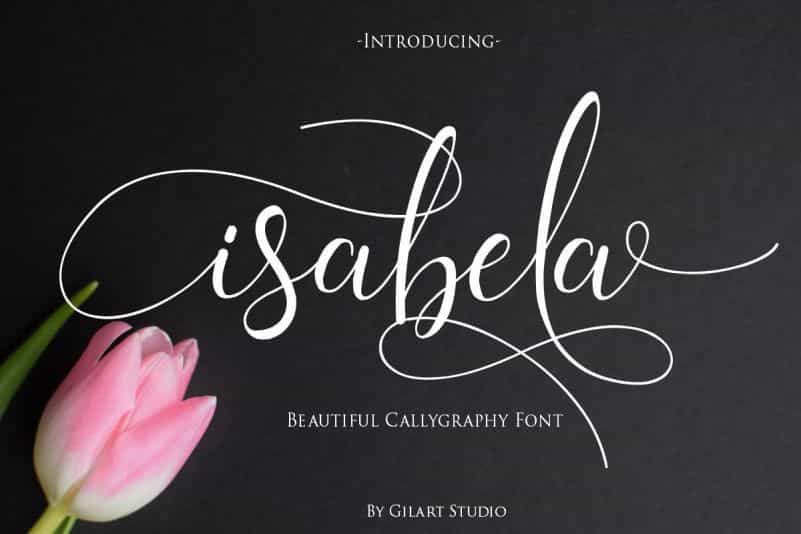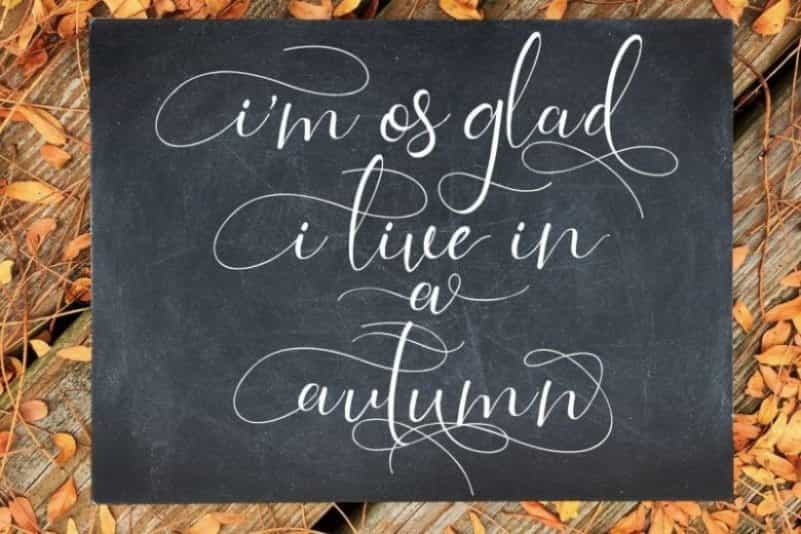
Discover Isabela Calligraphy Font, part of the Calligraphy collection—a versatile and unique font perfect for adding a personal touch to your projects. Download it for free and enjoy crafting designs with style, from invitations to social media posts. This font is available exclusively for personal use, giving you the freedom to create without limits. Unlock your creativity with Isabela Calligraphy Font today!
Introducing Isabela Font. It is design and it is shared by Gilar Studio. It is a romantic handwritten font with great and wild swashes included in its design. This font has been particularly designed to be used in logo and other related formal purposes including invitations, logos, magazines, books, greeting/wedding cards, packaging, fashion, make up, stationery, novels, labels or any other advertising requirements.